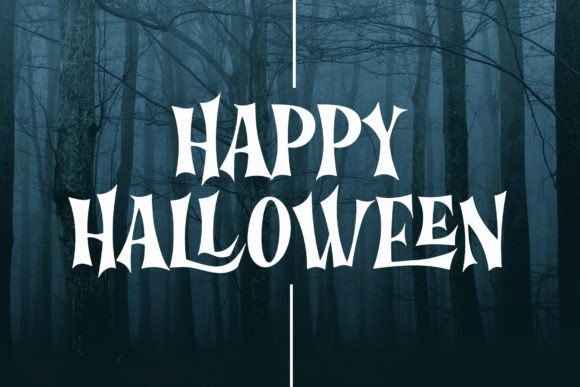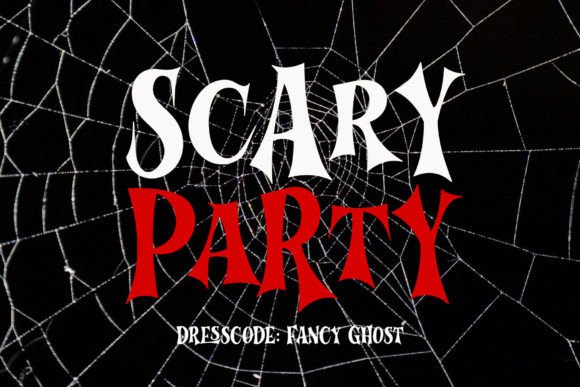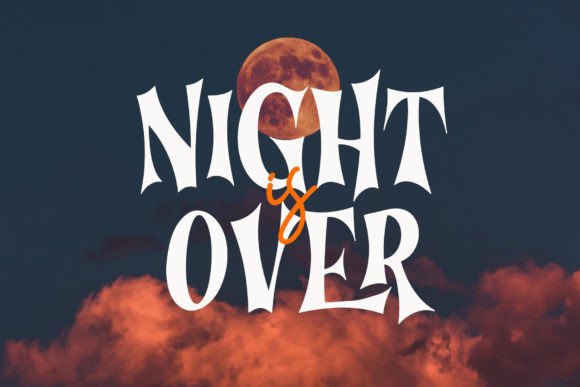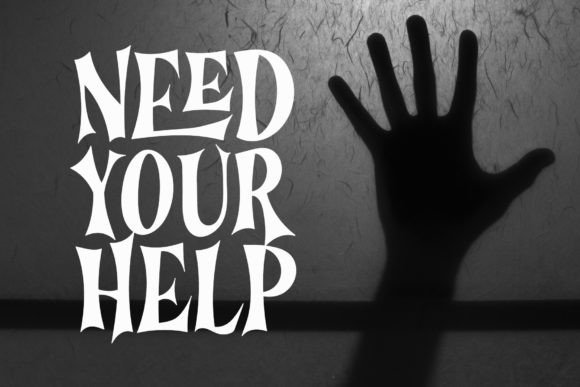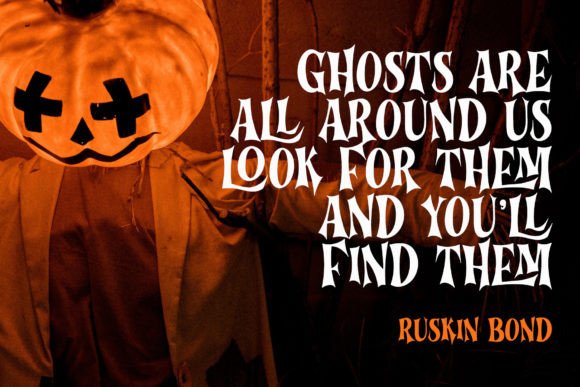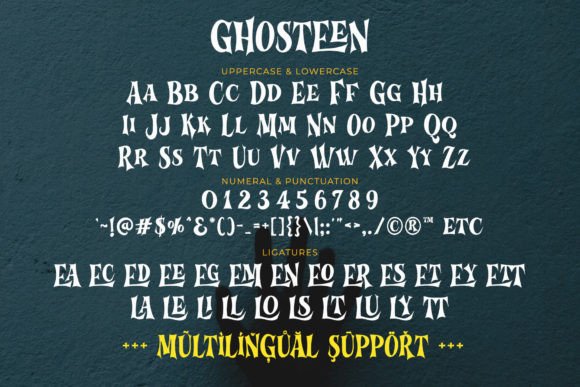
Meet Your New Favorite Font: Ghosteen Font
Do you remember that moment when you stumbled upon a font that perfectly captured the essence of your design project? For many of us, it’s a moment of pure excitement and joy. If you’re a designer, you know how crucial the right font can be in elevating your work. And that’s exactly what we’re going to talk about today – the Ghosteen Font.
This playful and spooky modern serif font is designed to add a touch of whimsy to your designs. With its bouncy, all-caps style and bigger uppercase letters, Ghosteen Font is perfect for creating eye-catching graphics, Halloween-themed designs, and more. Whether you’re a seasoned designer or a crafty enthusiast, Ghosteen Font is sure to bring a smile to your face.
So, why is Ghosteen Font a valuable addition to your design toolkit? For one, its ligatures and playful style make it a great choice for creating unique and memorable designs. And with its versatility, you can use it for a wide range of projects, from t-shirt design to stickers and sublimation printing.
Ghosteen Font Key Features
- Unique Characteristics: The font features a unique blend of modern and vintage elements, with intricate details and subtle nuances that give it a distinctive, hand-crafted feel.
Ghosteen Font Review
Overall, I think the Ghosteen Font is a unique and intriguing addition to the world of typography. ✨ Its quirky, handwritten feel is sure to stand out in any design project. I particularly appreciate the subtle texture and organic feel that adds depth to the font.
Here are some things that work well:
- ✨ The font’s imperfections and character variations give it a handmade feel that’s perfect for creative projects.
- ✨ The Ghosteen Font is highly legible, even at smaller font sizes, making it a great choice for body text.
- ✨ The font’s versatility means it can be used in a wide range of applications, from print to digital design.
However, there are a few limitations:
- ⚠️ The font may not be suitable for formal or corporate designs, as its playful feel may not be taken seriously.
- ⚠️ Some users may find the font’s imperfections distracting or difficult to read, especially in long blocks of text.
Overall, I think the Ghosteen Font is a great choice for designers who want to add some personality and whimsy to their work. With its unique feel and high legibility, it’s a great addition to any design toolkit.
The Ghosteen Font is ideal for:
- Creative projects that require a unique and distinctive typography.
- Branding and identity projects that need a custom font.
- Designs that require a vintage or retro feel.
Tips for Getting the Most Out of Ghosteen Font
Use the Ghosteen Font in conjunction with other vintage-inspired design elements to create a cohesive look.
Experiment with different font sizes and styles to create visual interest.
Use the font in combination with bold and italic styles to add emphasis and hierarchy to your designs.